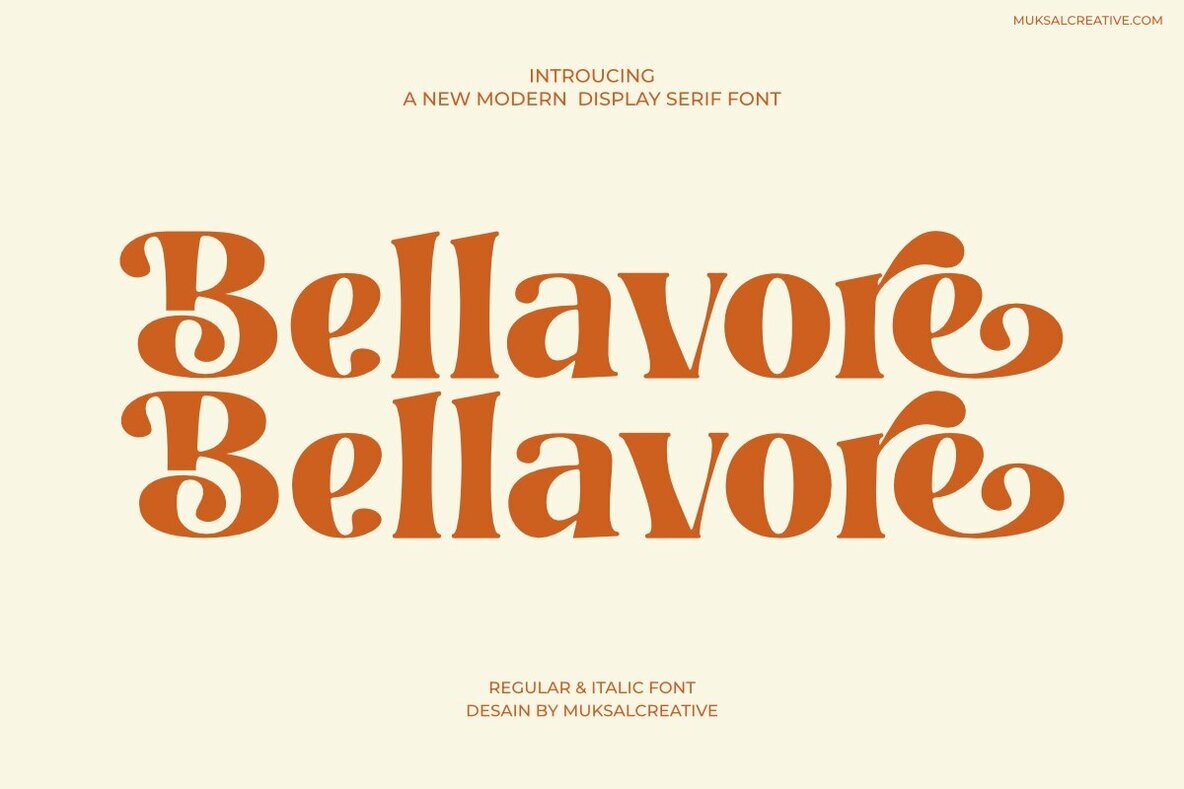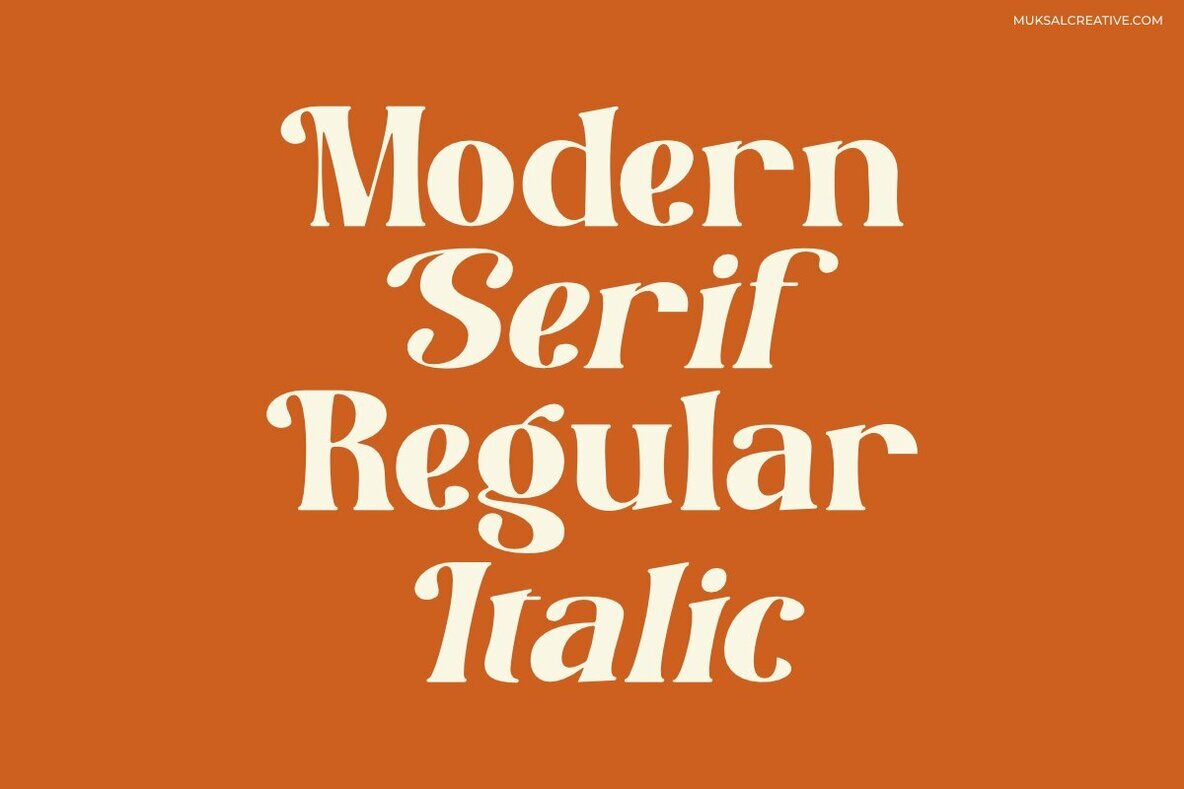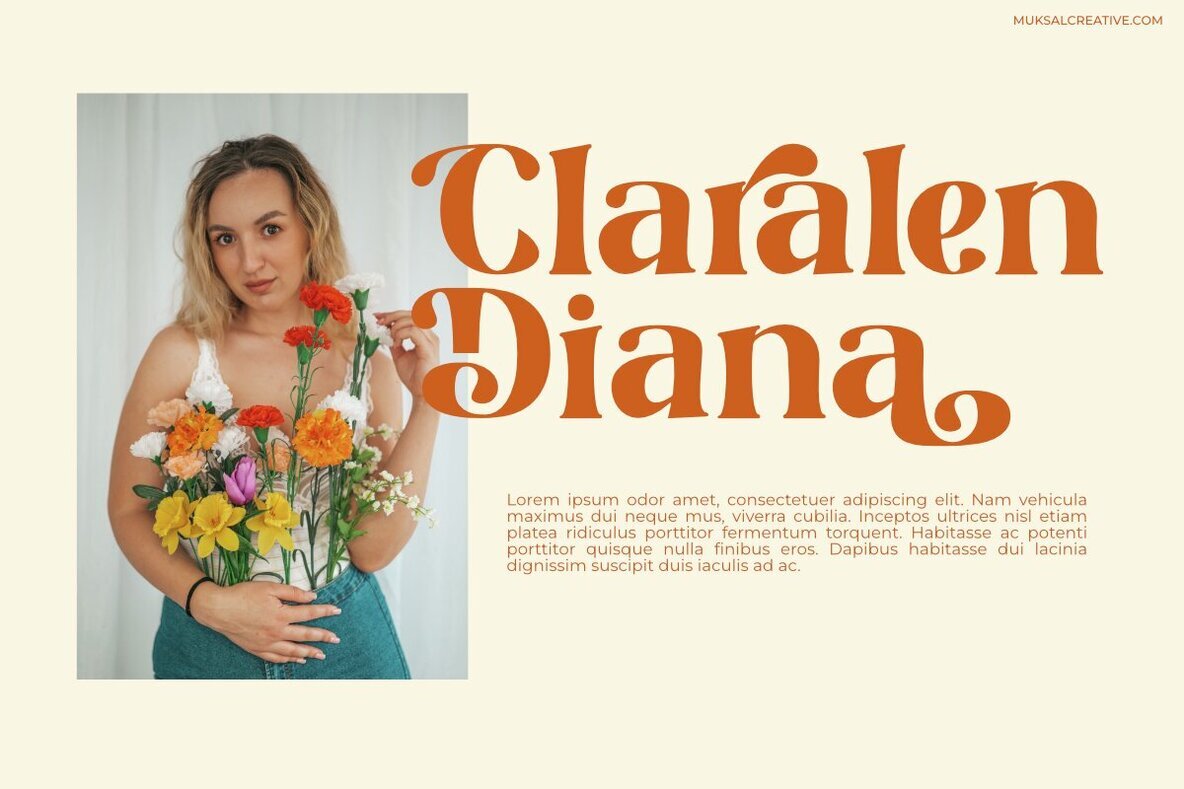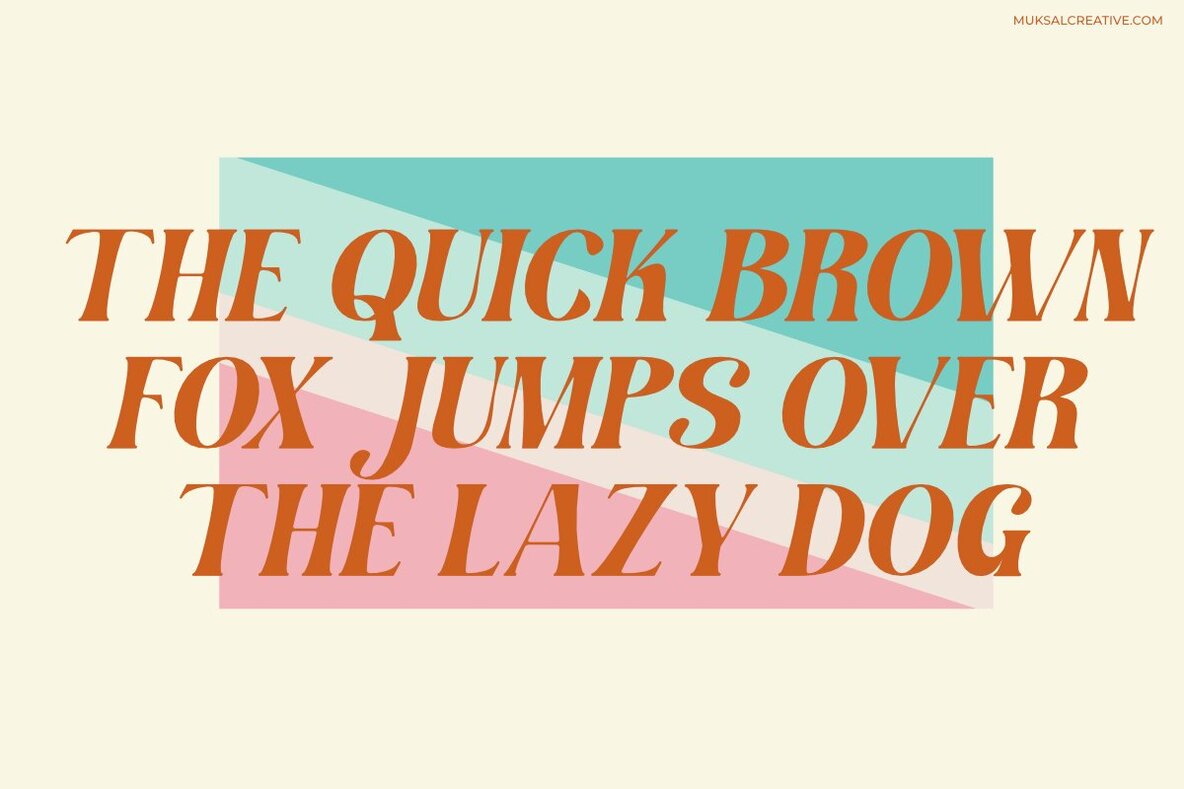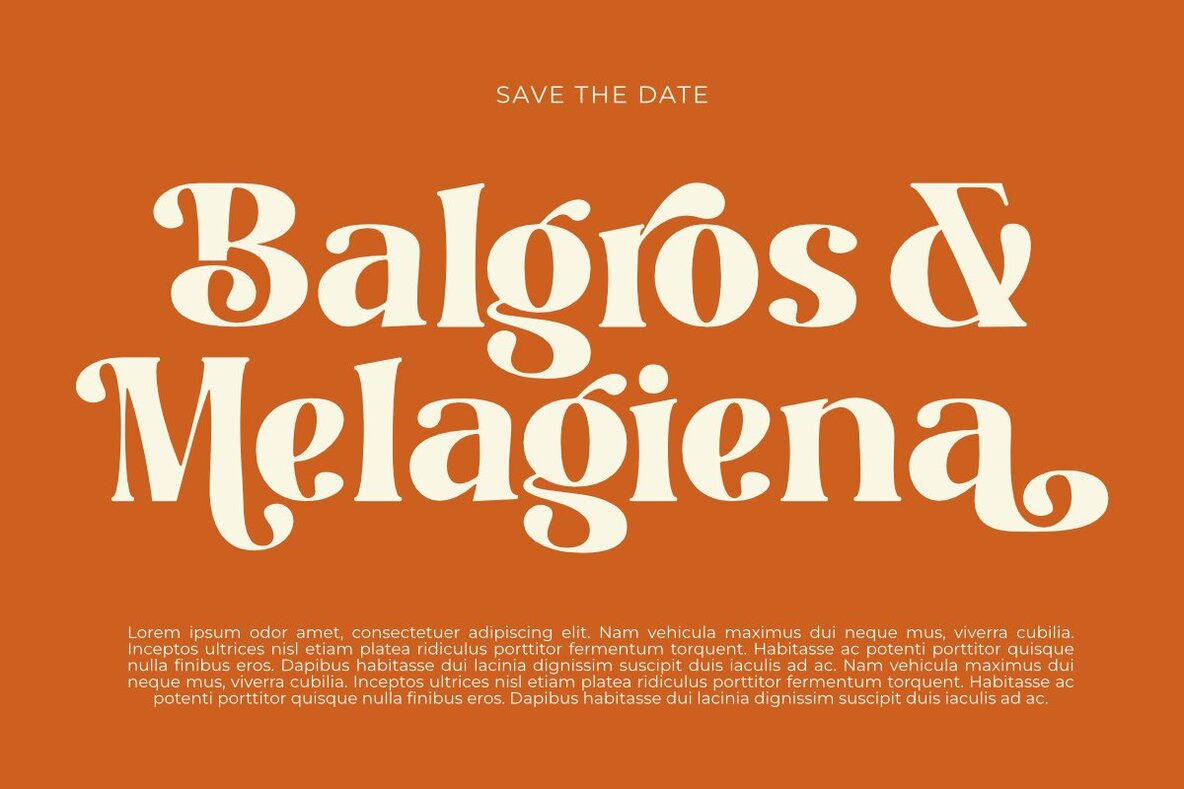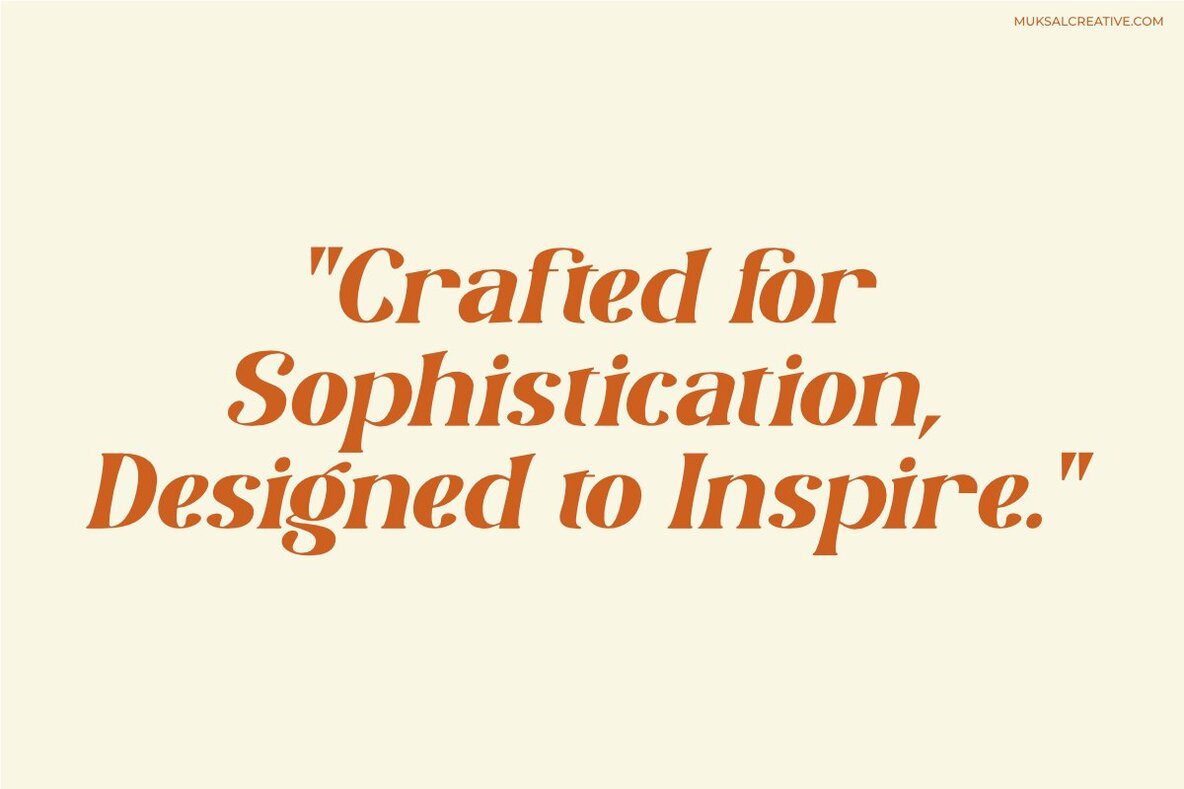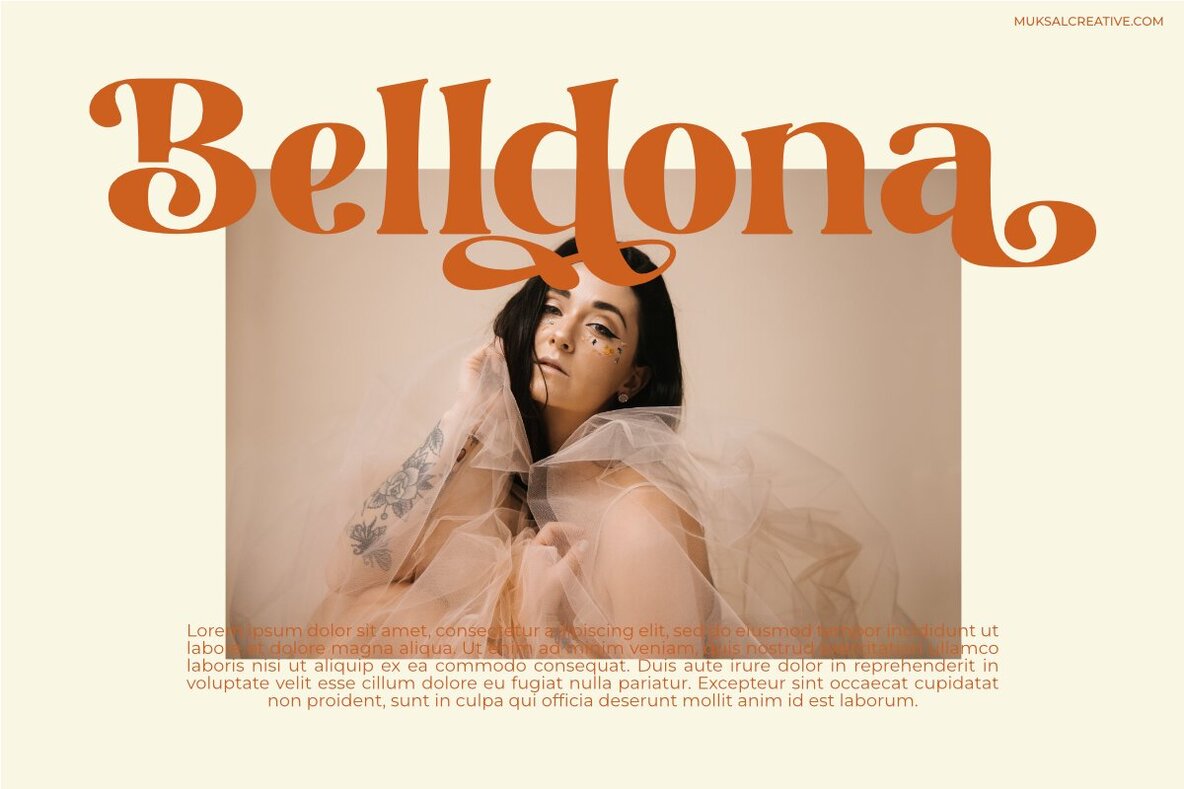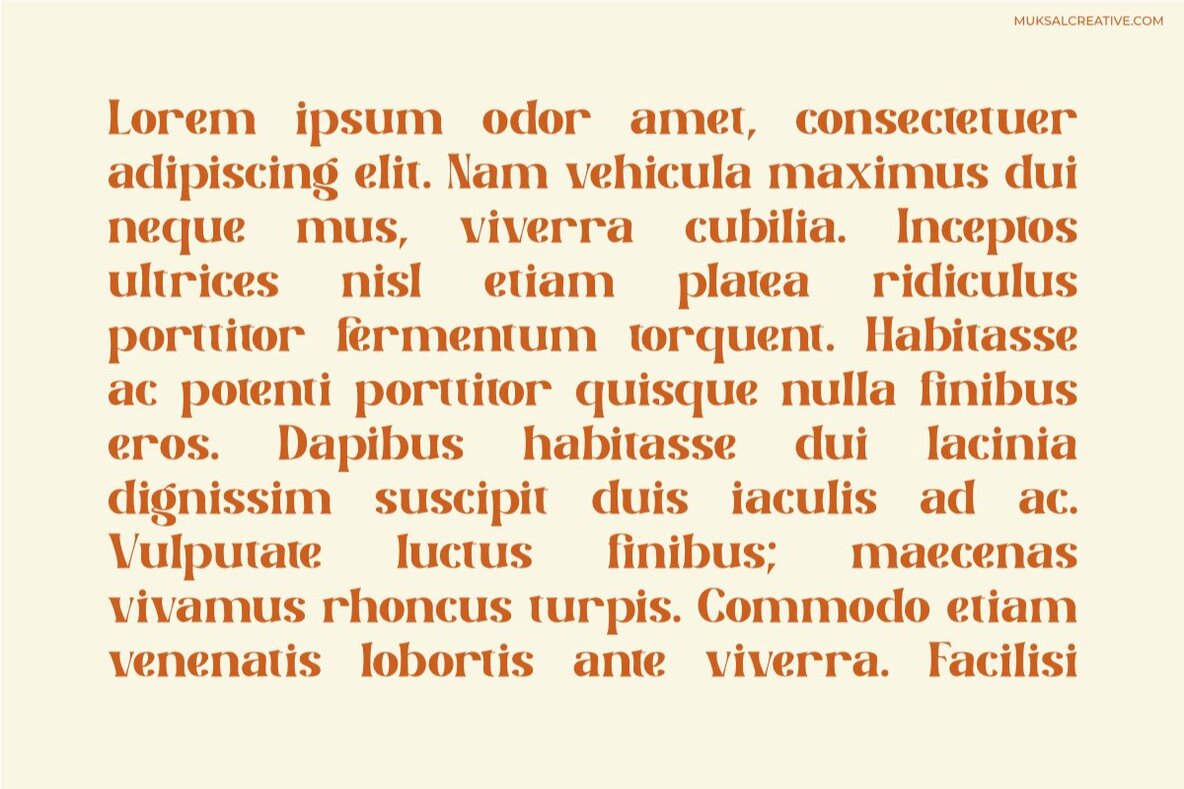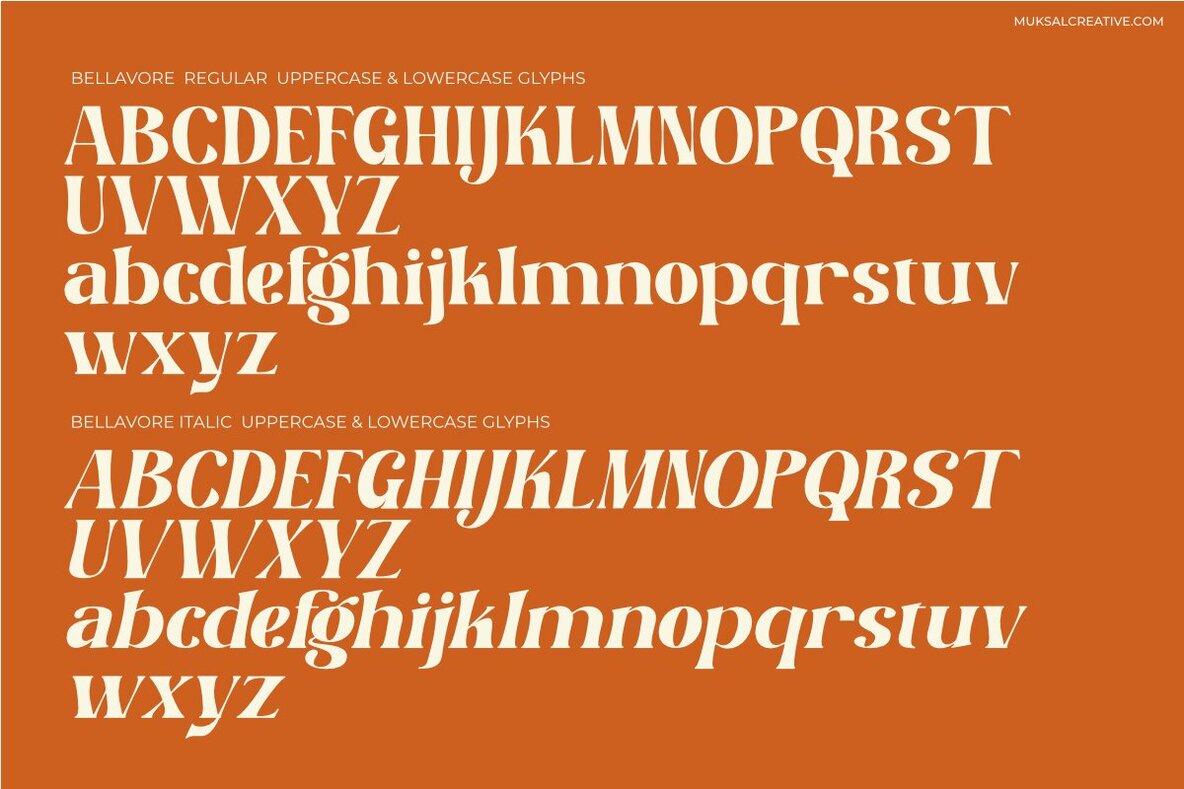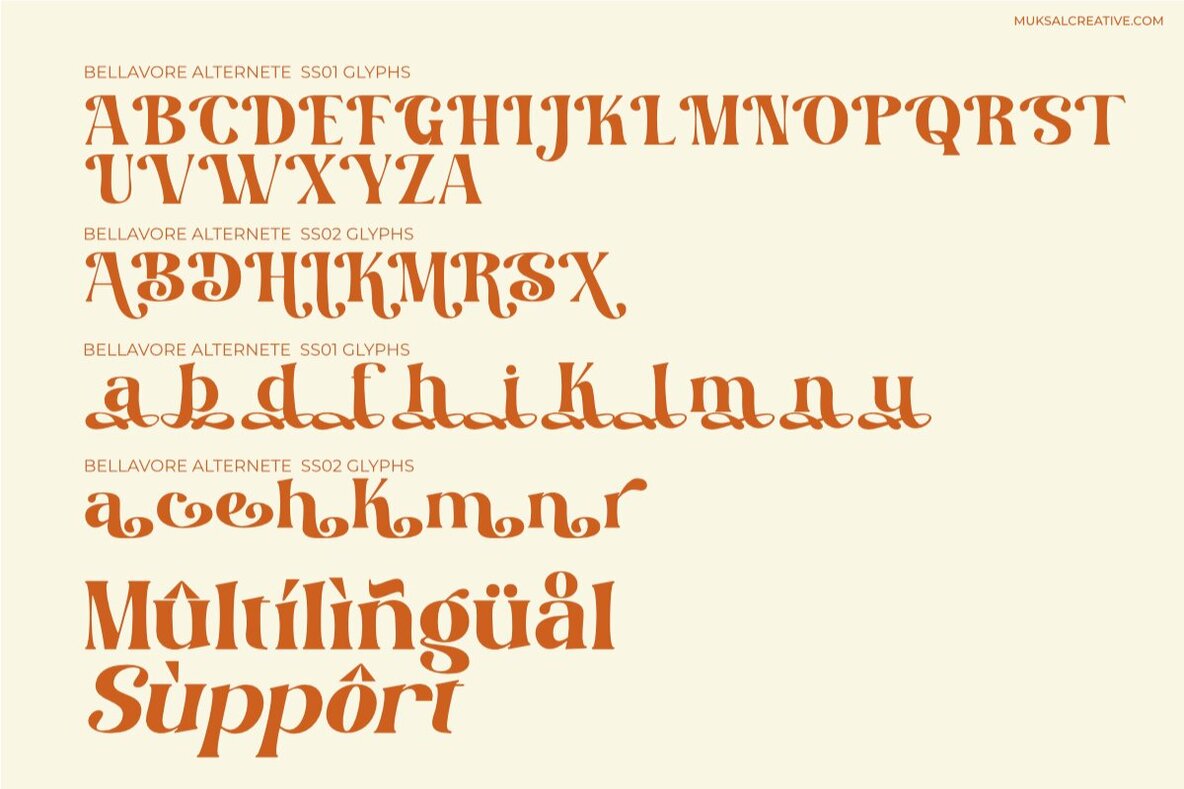
Bellavore Font
Bellavore is a captivating display serif font that harmonizes classic sophistication with modern charm. Its distinctive decorative serifs and bold thick-thin stroke contrast create an aura of luxury and authority. Designed with versatility in mind, Bellavore features customizable alternate characters, making it perfect for logos, headlines, and premium branding projects. This font shines in high-impact applications such as luxury packaging, posters, editorial layouts, and digital media. Optimized for grand-scale use, Bellavore's wide proportions and precise details remain crisp and legible at any size, ideal for brands seeking a timeless yet dynamic identity. Its ornamental serifs command attention while offering limitless design possibilities through its alternate sets. Embrace Bellavore for a bold, enduring statement that speaks both heritage and innovation.Bellavore: A Display Serif Legacy
Features that Stand Out